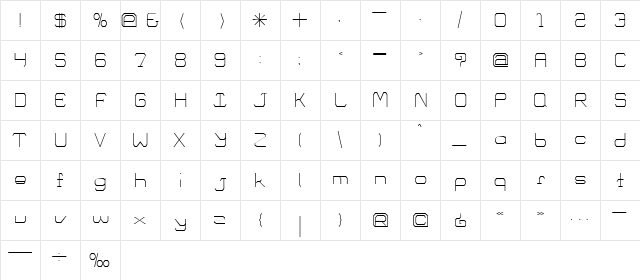
Design Context for Cisco Typeface
Cisco takes a measured approach to typography — its balanced proportions and neutral character make it a reliable workhorse for both digital and print work.
Pro Tip: Use Cisco in both headline and body roles to test its range before committing to a single application.